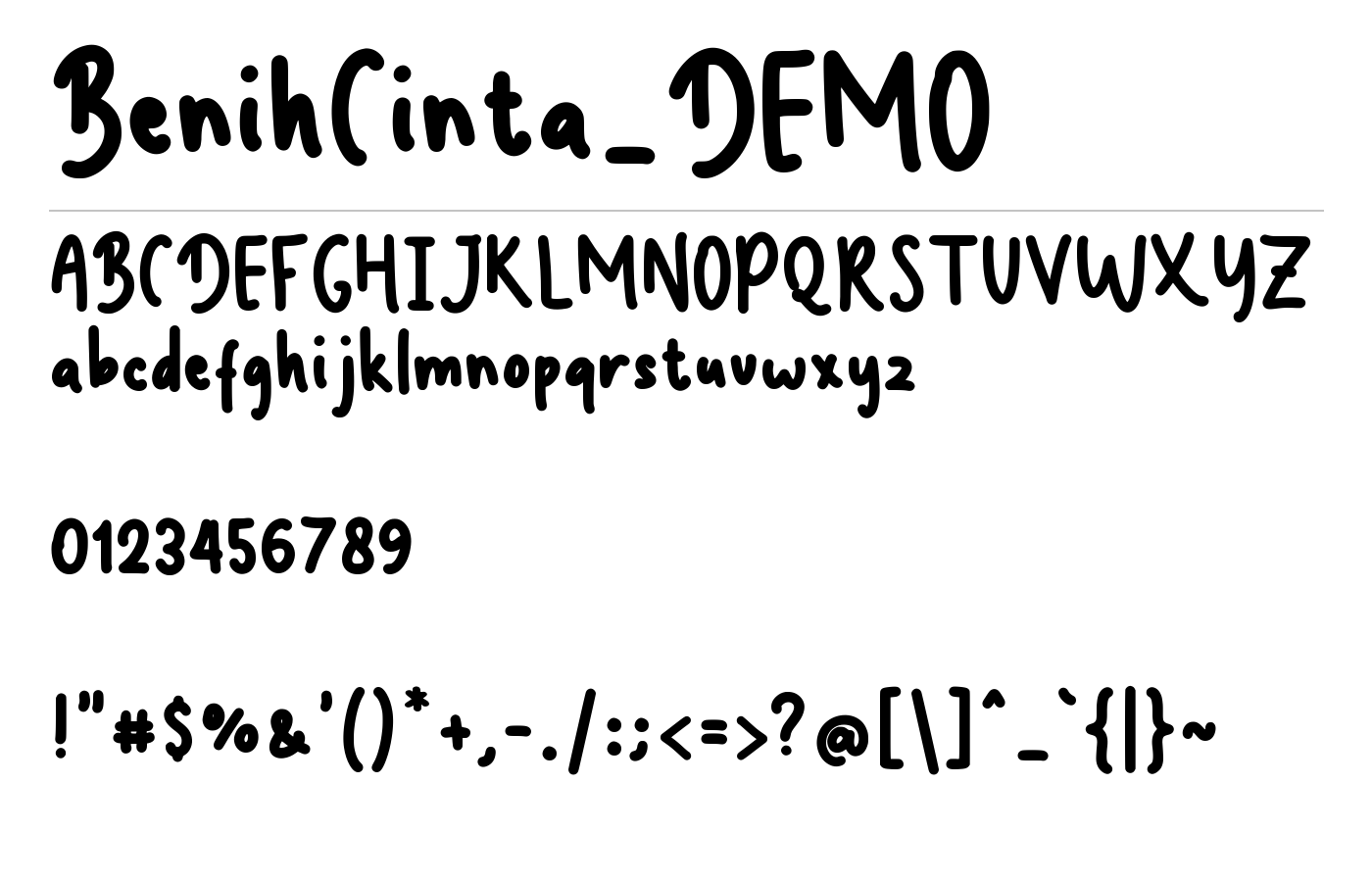
BenihCinta_DEMO is a playful and casual handwritten font with a bold weight and slightly condensed width, featuring rounded, friendly letterforms that convey warmth and approachability. Its unique, organic strokes and informal style make it ideal for creative projects, children's materials, and brands seeking a fun, personal touch. This font works beautifully in headlines, logos, and packaging where a lively and welcoming personality is desired.
BenihCinta_DEMO Font
About BenihCinta_DEMO Font